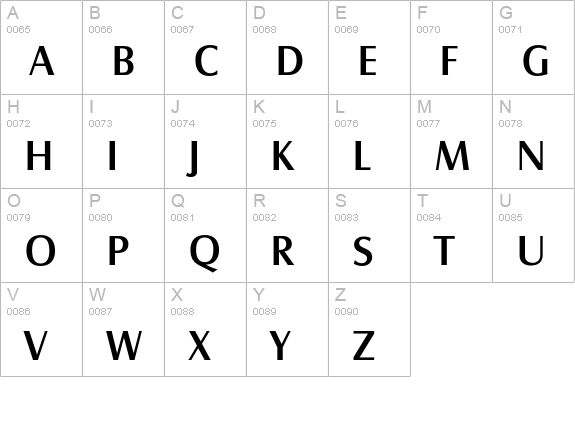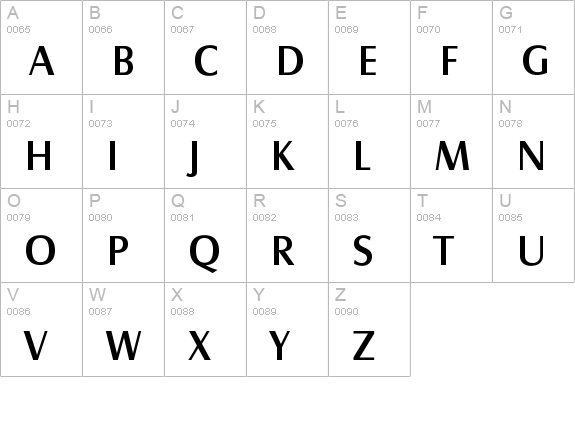
Salzburg-Medium is a balanced, medium-weight variant in the Salzburg typeface family \xE2\x80\x94 well suited to sub-headlines, navigation, and balanced editorial work.
Introducing Salzburg-Medium, a beautifully crafted font that effortlessly combines elegance and modernity. With its clean lines and sophisticated curves, this font exudes a sense of refined simplicity that is perfect for any design project. Salzburg-Medium is not only visually pleasing, but it also offers exceptional legibility, making it an ideal choice for both print and digital applications. Whether you're creating a logo, designing a website, or crafting a stunning headline, this versatile font will elevate your work to new levels of professionalism. What sets Salzburg-Medium apart is its accessibility. It is freely available to download at FontsMarket.com, allowing designers and creatives to access its exquisite features without any constraints. Say goodbye to expensive font licenses and restrictions - Salzburg-Medium gives you the freedom to express your creativity without limitations. With its extensive character set, this font offers multilingual support, enabling you to communicate your message effectively across different languages and cultures. Its versatility extends to various design styles, from minimalistic and contemporary to timeless and classic. Whether you're a seasoned designer or just starting your creative journey, Salzburg-Medium is a must-have addition to your font collection. Download it today at FontsMarket.com and experience the seamless blend of elegance and functionality that this font offers. Elevate your designs, captivate your audience, and unleash your true creative potential with Salzburg-Medium.